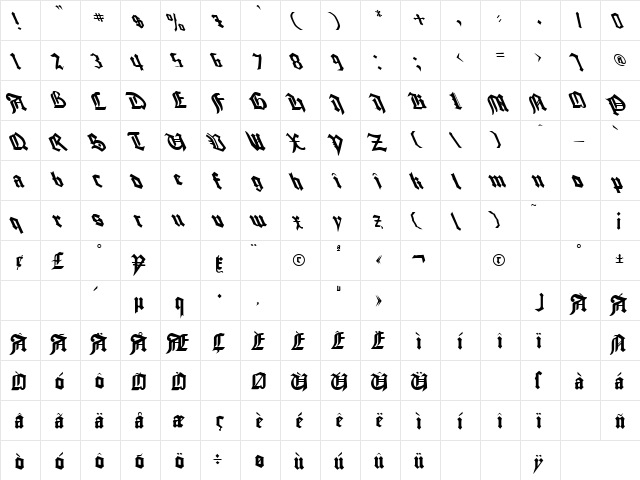
Trance 1 Regular Font Preview
Trance 1 Regular
Trance 1 Regular Font Details
Design Context for Trance 1 Typeface
Trance 1 is a composed and adaptable typeface that performs quietly and consistently across a wide range of design contexts.